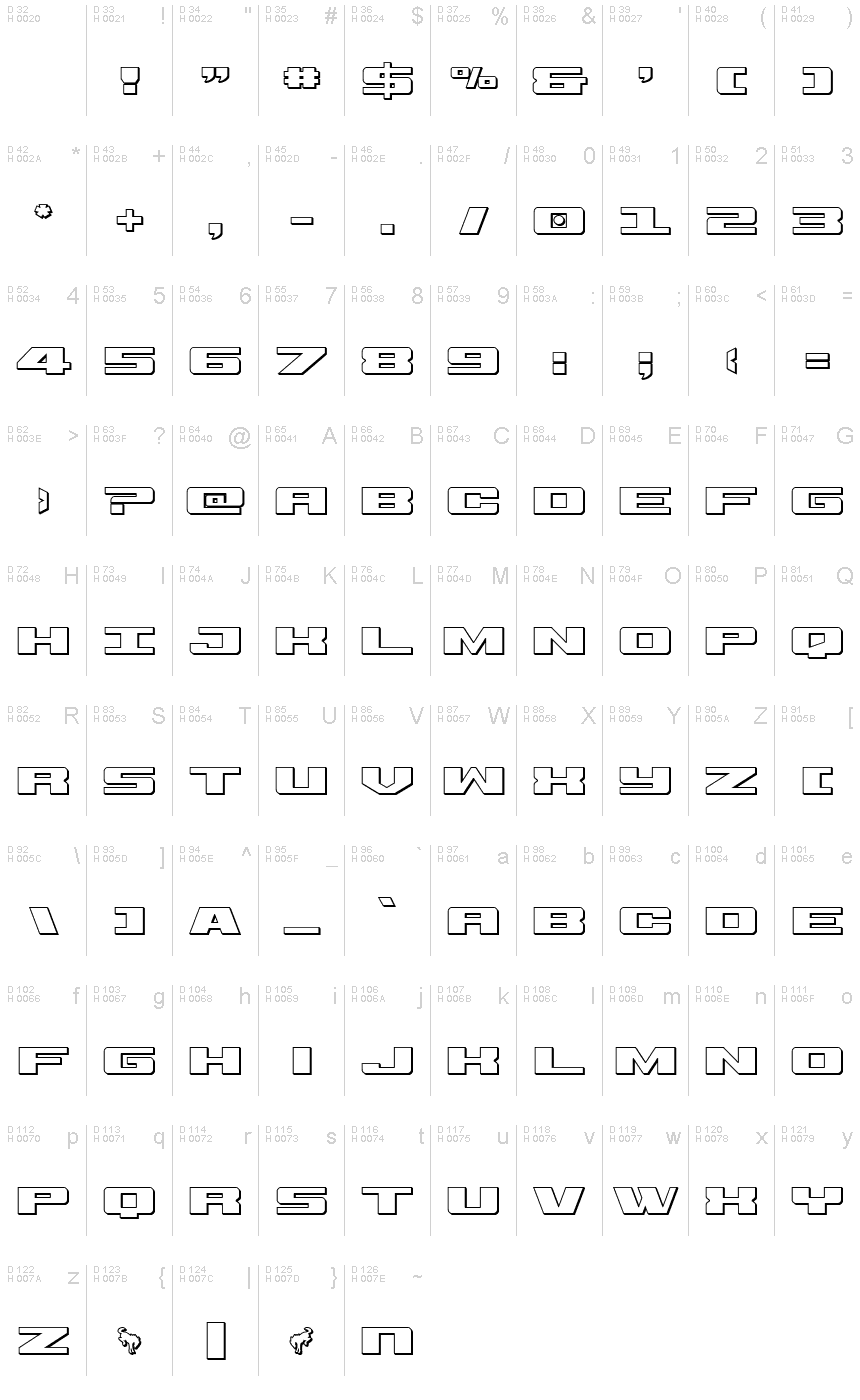
Buckin' Bronc Spaced 3D
Buckin' Bronc Spaced 3D, designed by Iconian Fonts, bursts onto the scene with its extra-bold, extra-expanded character set that's impossible to ignore. This display font from the Buckin' Bronc family wields a unique techno vibe with a 3D twist that commands attention. Its robust form and futuristic edge make it an ideal choice for projects aiming to stand out—think gaming interfaces, movie titles, or dynamic branding campaigns.
With Buckin' Bronc Spaced 3D, your creative endeavors will buck the trend and leap off the page or screen with unparalleled vigor and style.